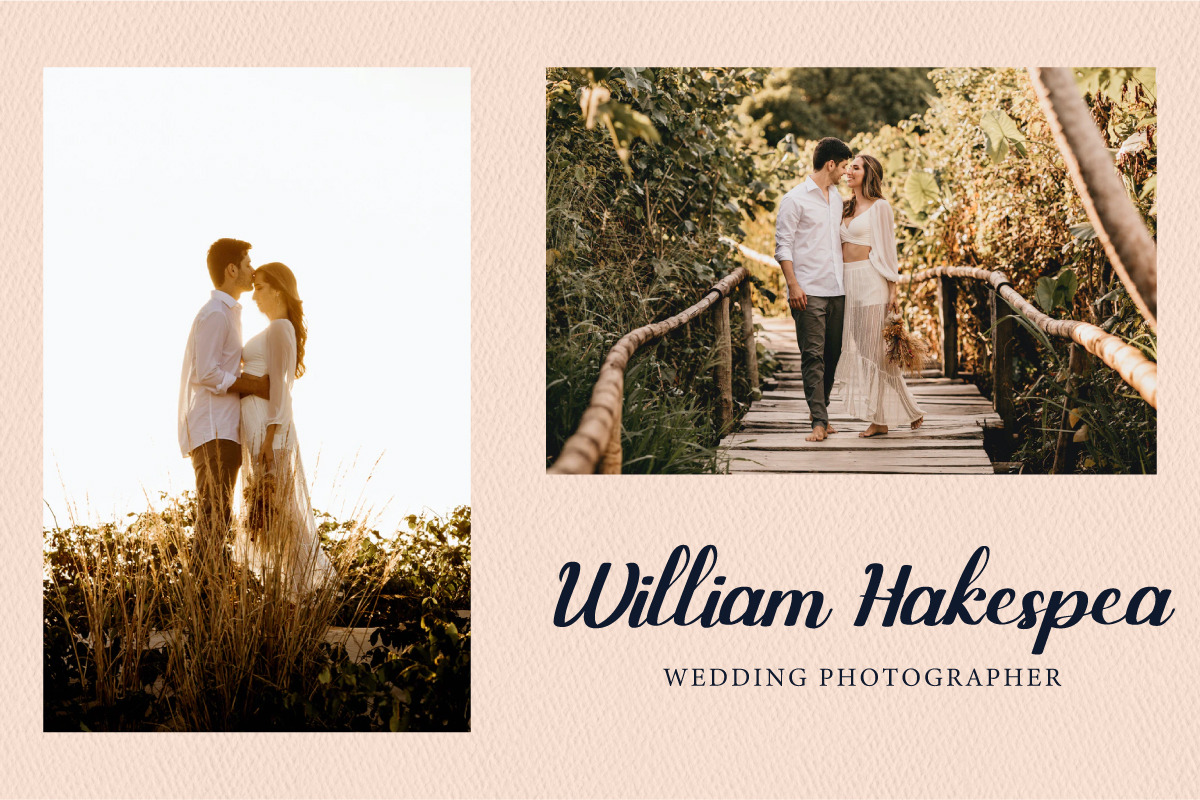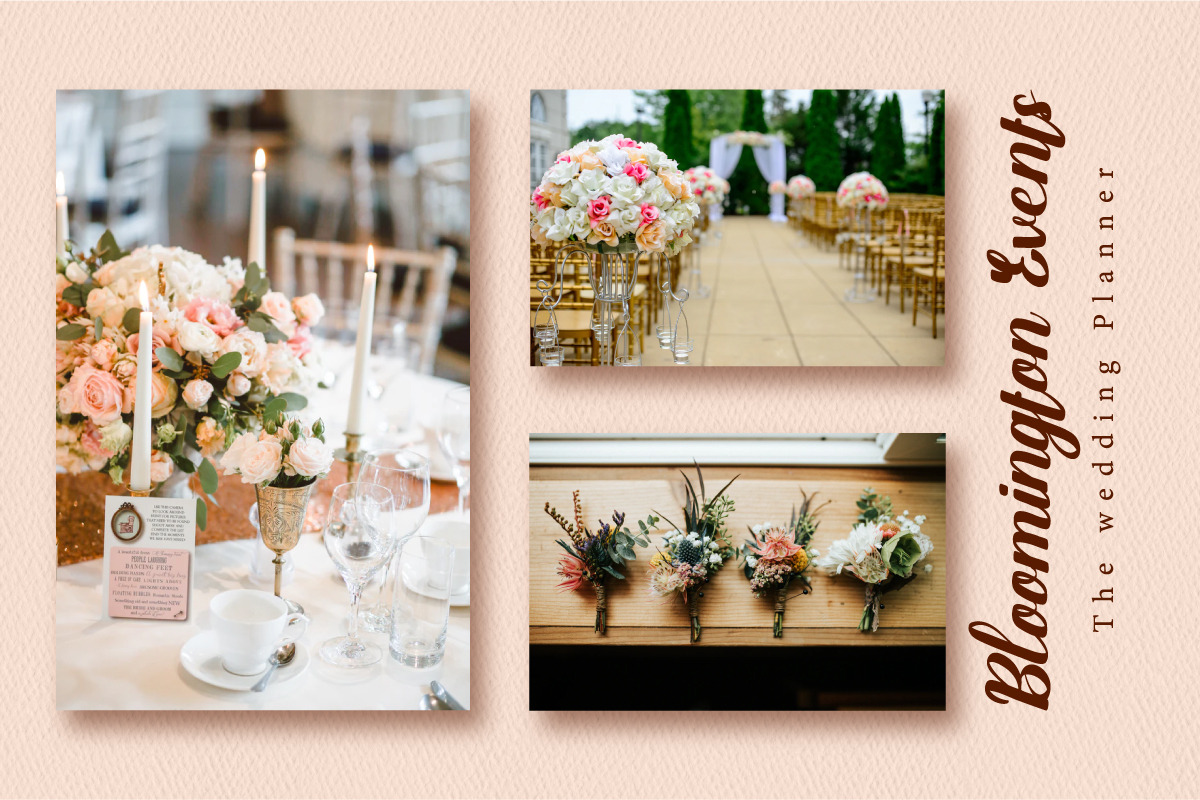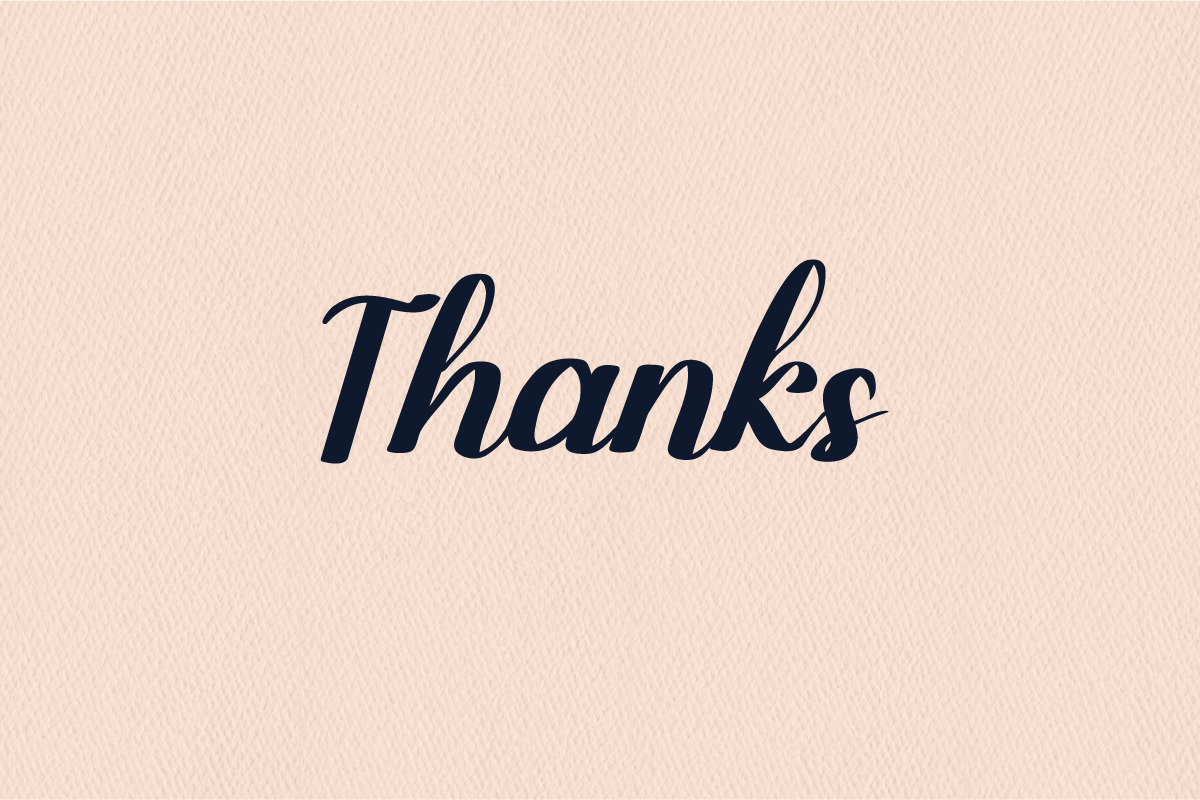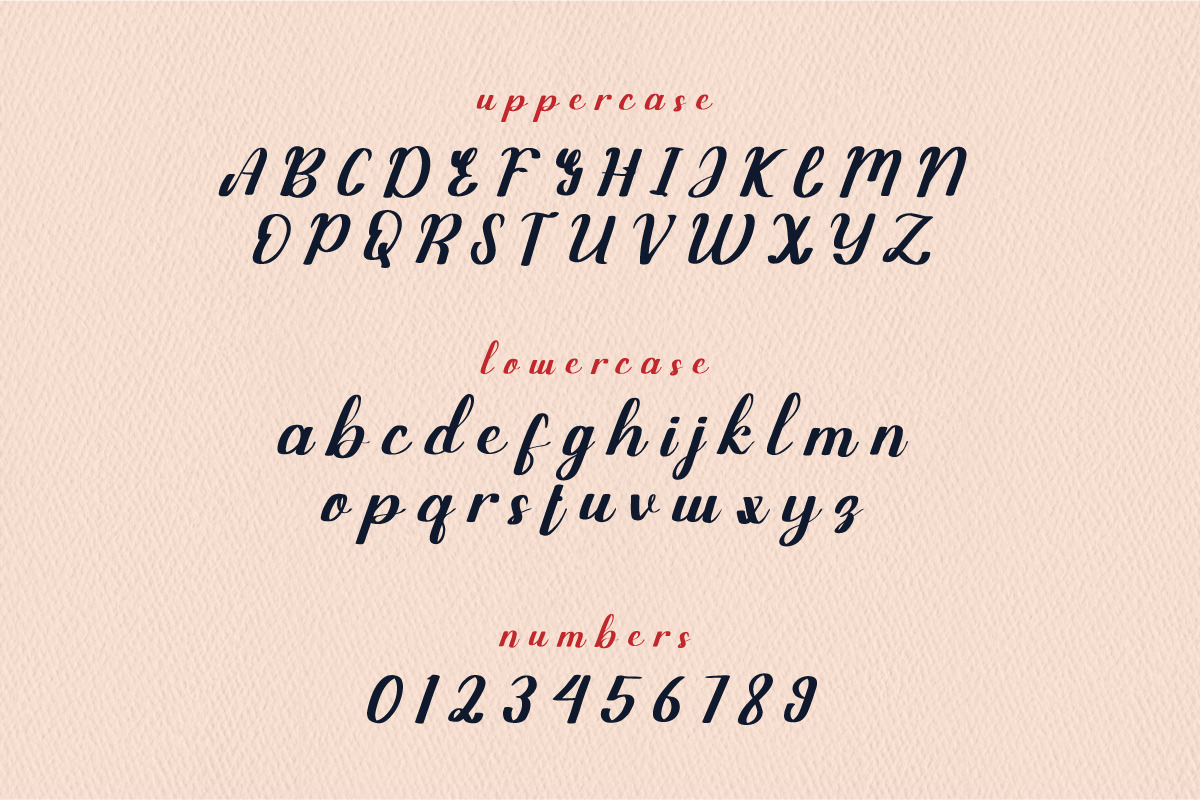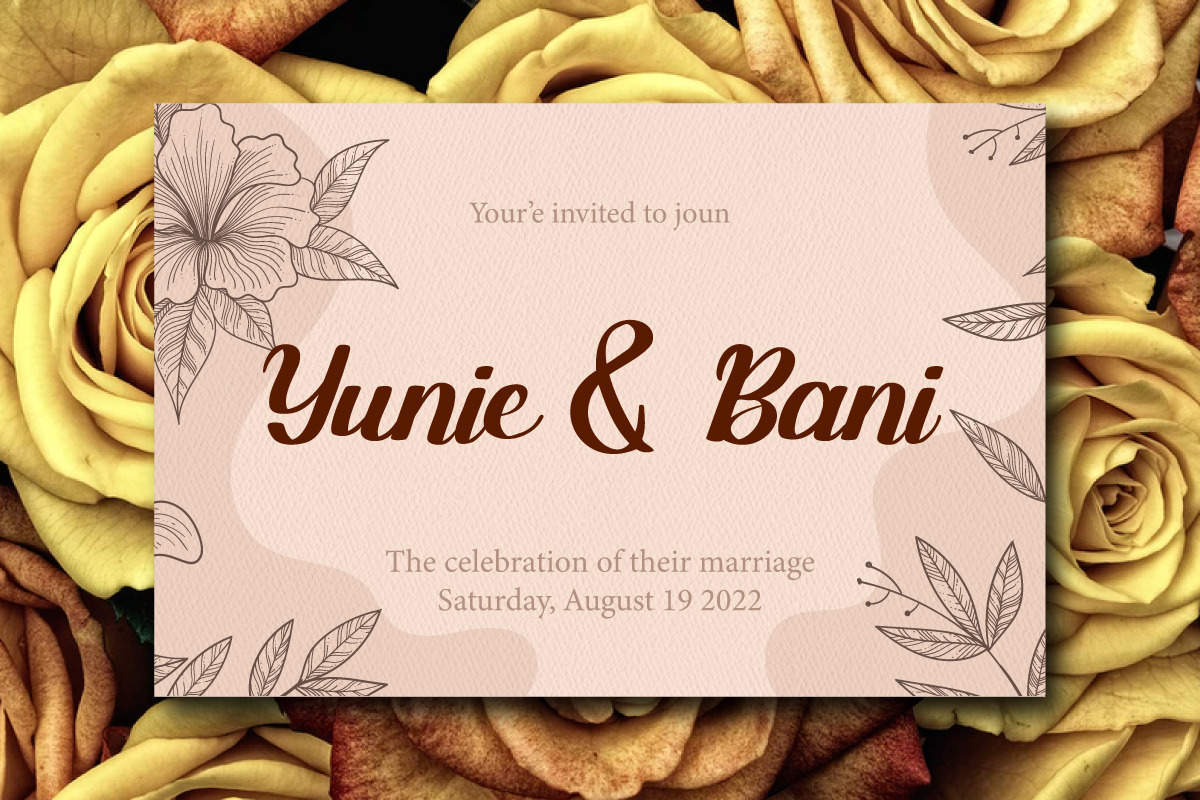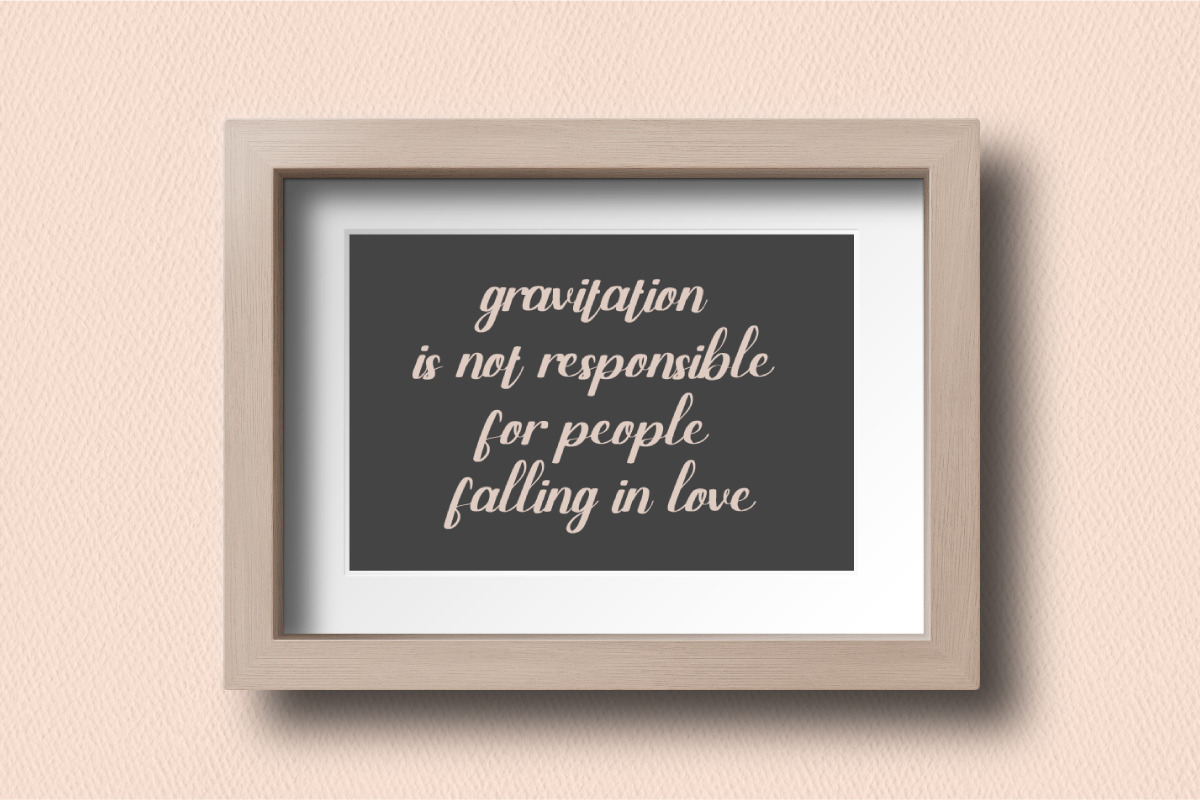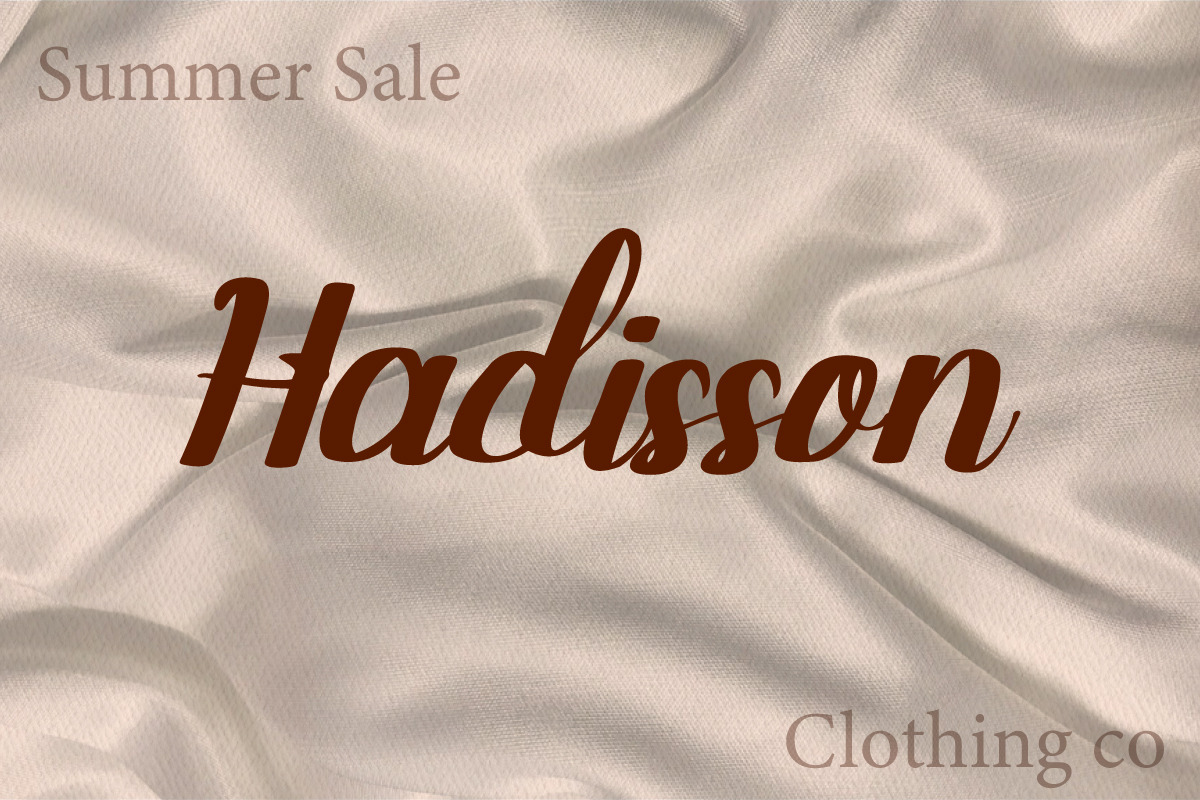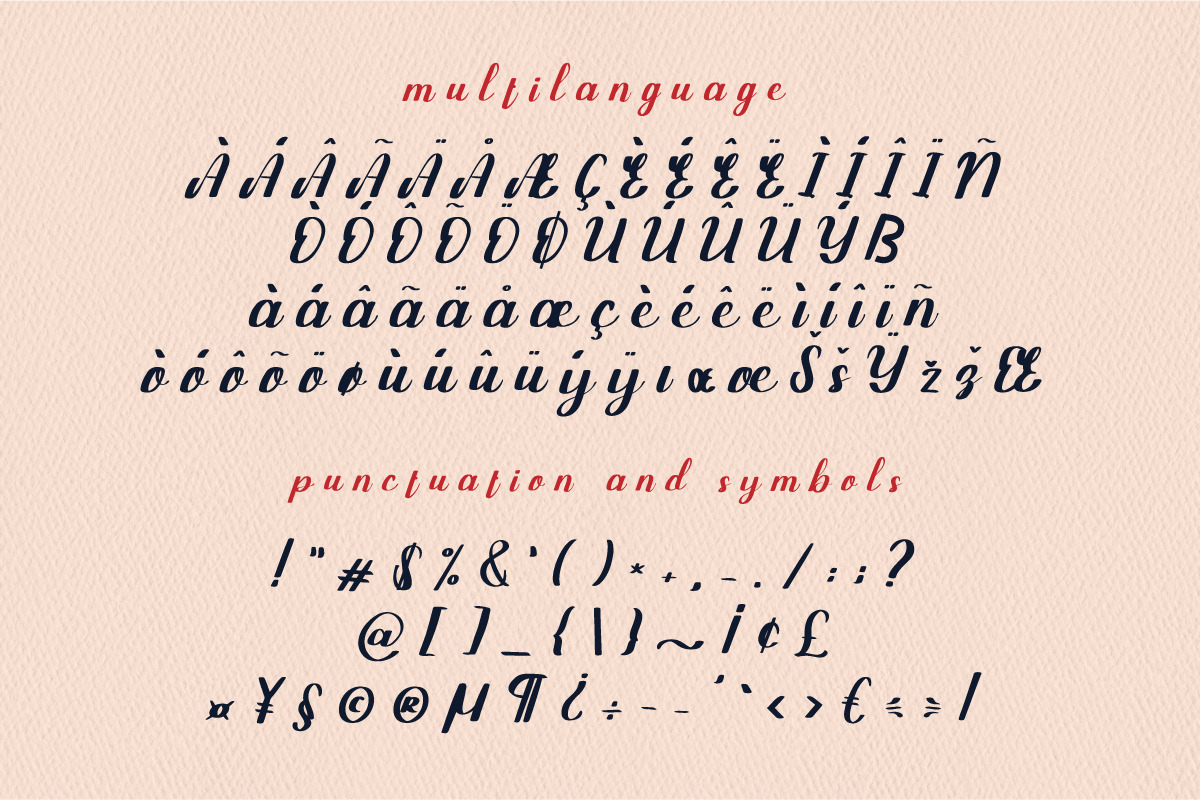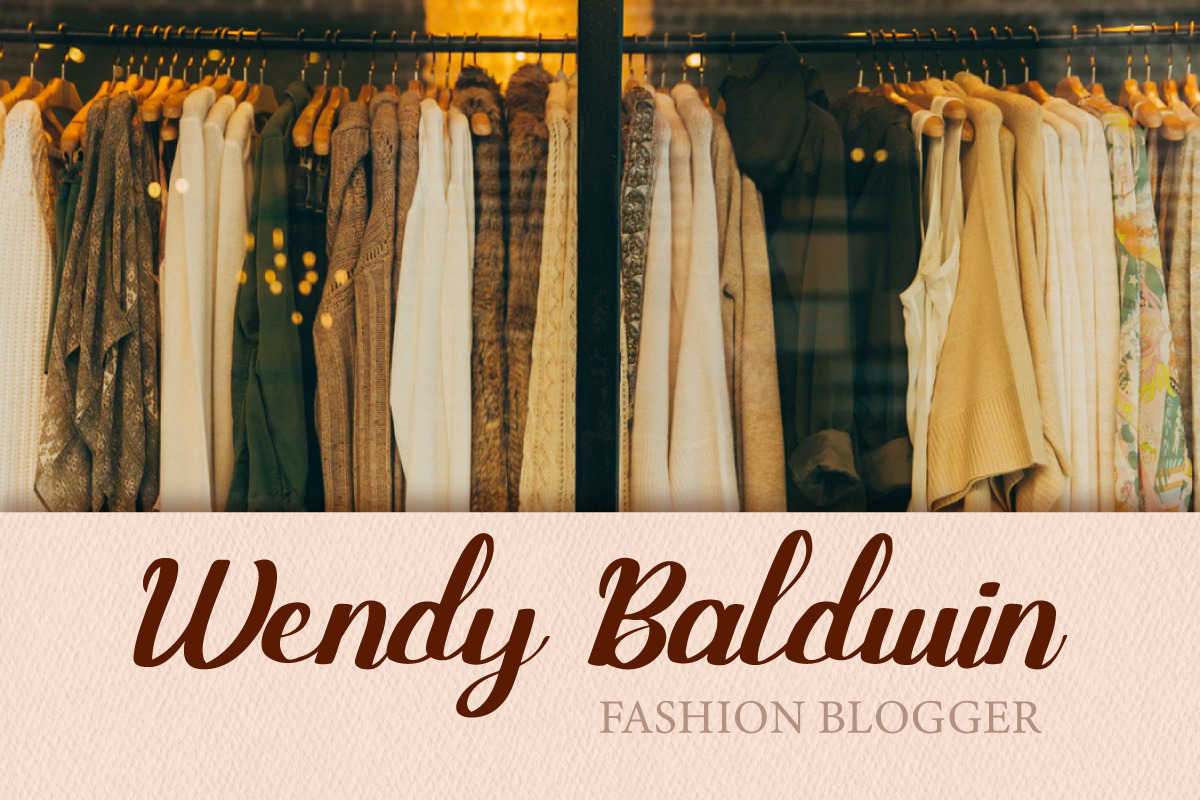
Wallflower
Wallflower is a lovely and delicate script font that exudes elegance and class. This font was particularly crafted for those who need a beautiful and refreshing look to their designs.